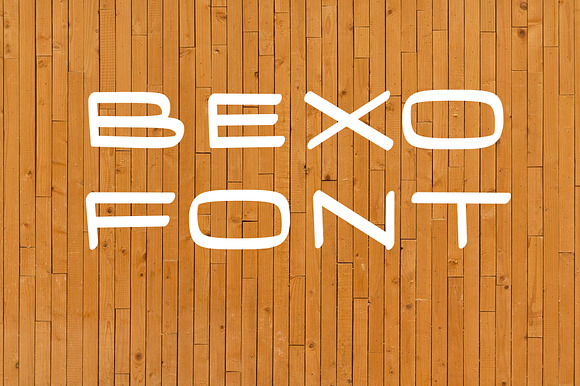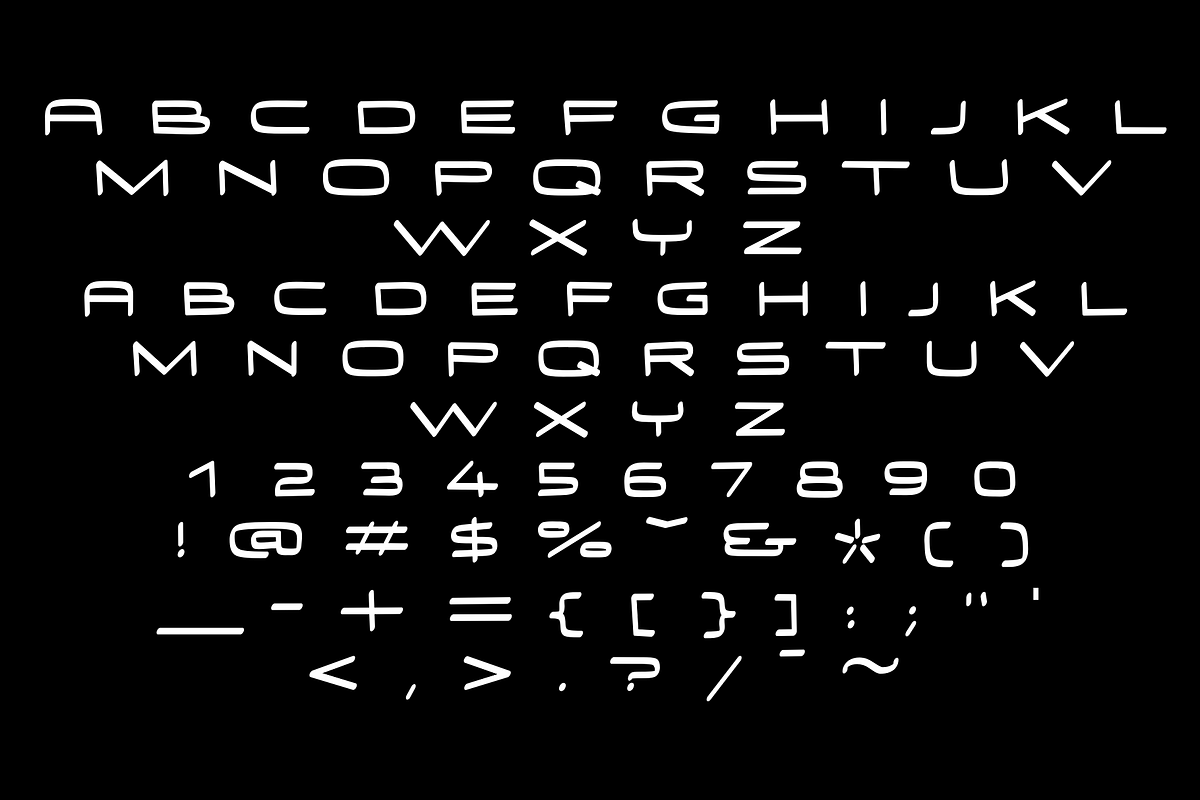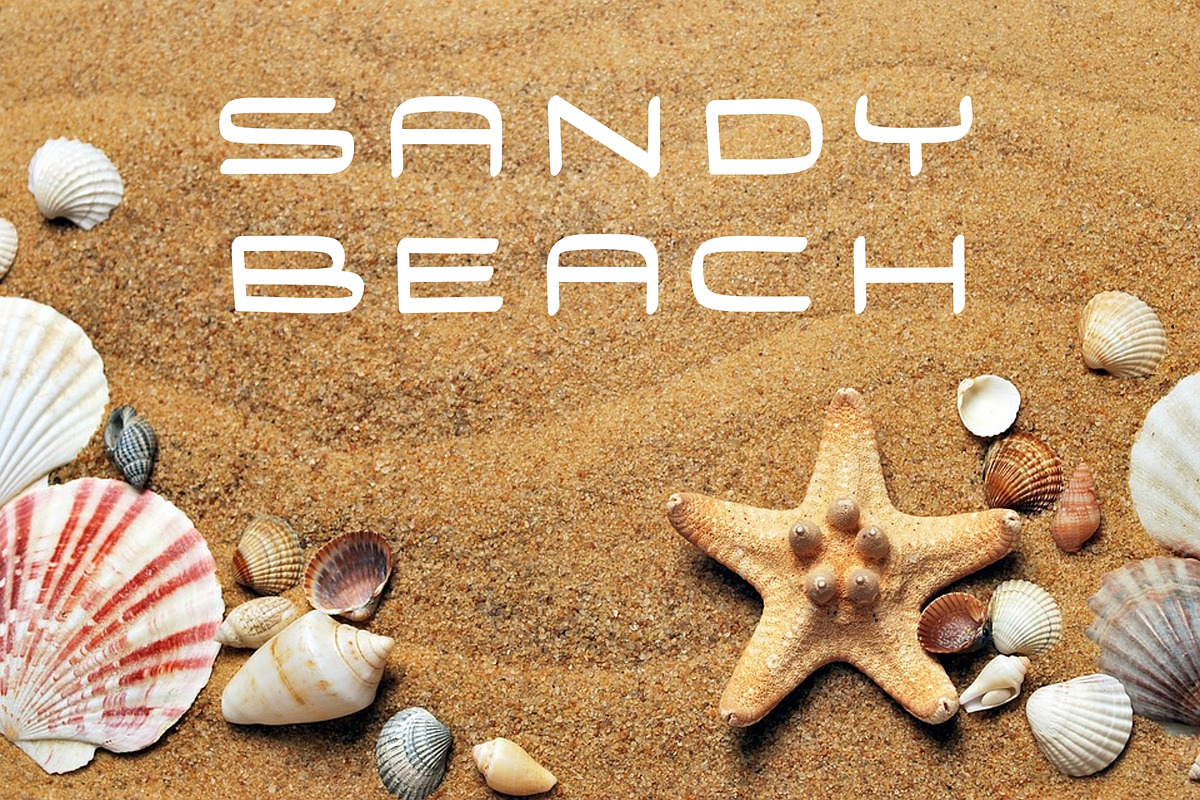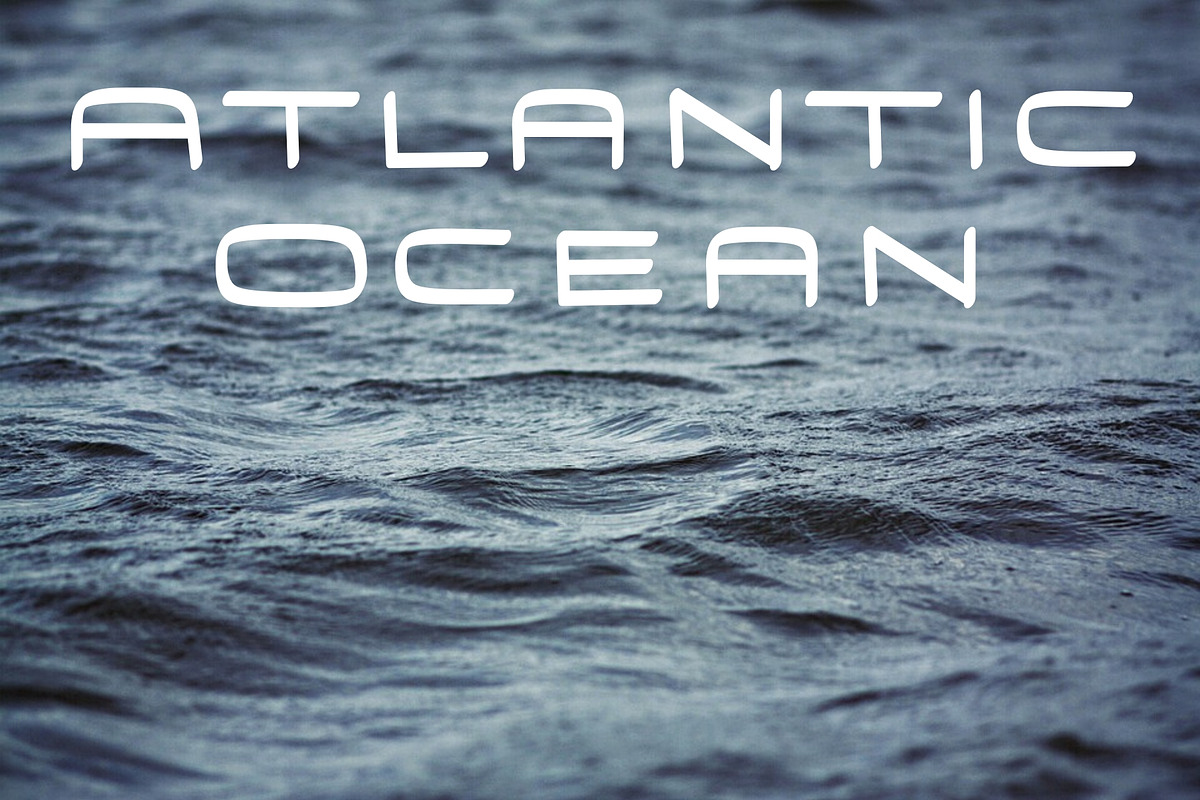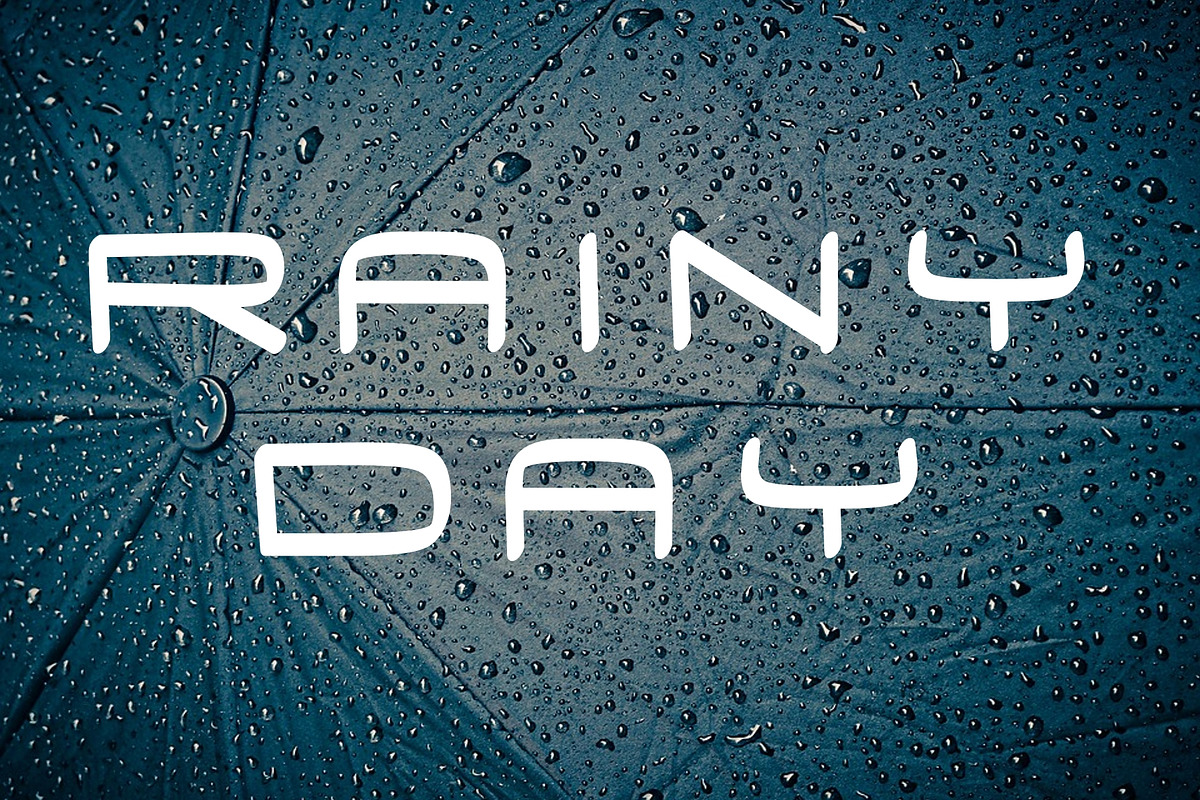
Bexo Font
Bexo Font by ultimatefontcreator is a font selected for branding, posters, packaging, typography.
Why Bexo Font is worth a look
Bexo Font by Ultimate Font Store fits naturally into Branding, posters, packaging, typography.